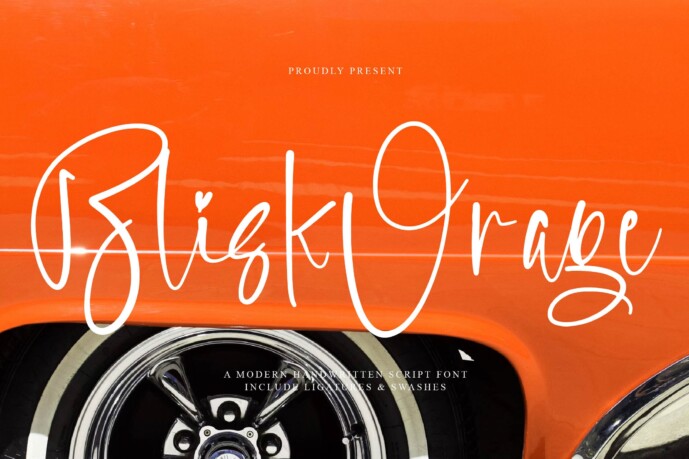
Blisk Orage is a playful yet elegant script font featuring whimsical letterforms and heart-themed accents. Perfect for romantic projects, social media content, or boutique branding, it delivers charm with a contemporary twist.